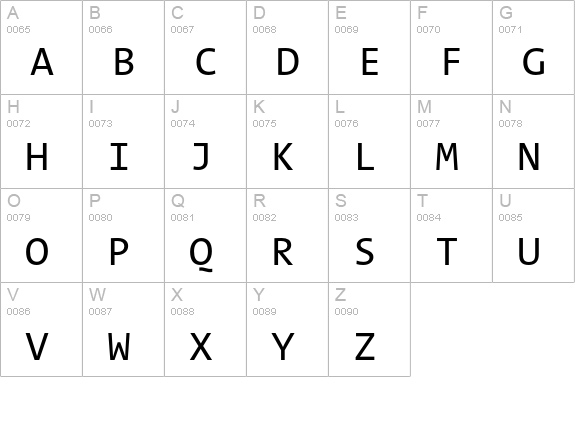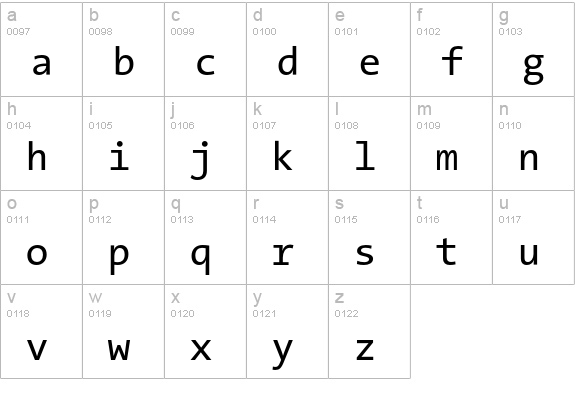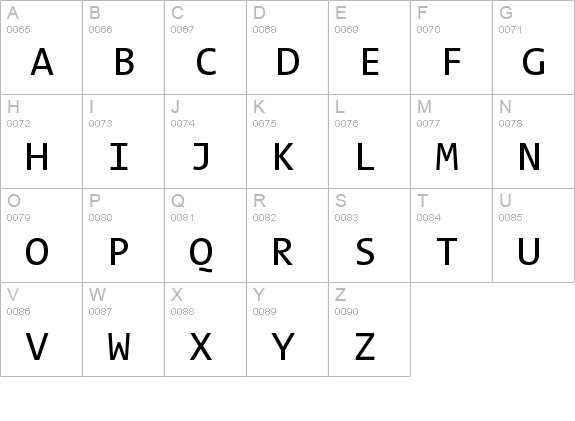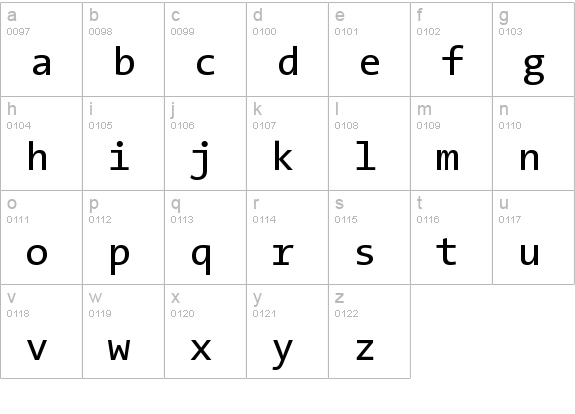
TheSansMono Plain font is a versatile and stylish typeface that is perfect for a wide range of design projects. With its clean and modern appearance, it brings a touch of professionalism to any text it is used with. The font features a monospaced design, making it ideal for coding, programming, and other technical applications. One of the standout features of TheSansMono Plain font is that it is free to download. It is available for both personal and commercial use, allowing designers, developers, and enthusiasts to enhance their projects without any hassle. This font can be freely obtained at FontsMarket.com, a trusted source for high-quality fonts. TheSansMono Plain font offers a balanced mix of legibility, elegance, and simplicity. Its clean lines and consistent spacing make reading and editing text a breeze. Whether it is used in print or digital media, this font ensures that every character is clear and easy to distinguish. With its timeless design, TheSansMono Plain font is suitable for a wide range of applications. From website design to branding, from user interfaces to signage, this font adds a touch of professionalism and sophistication to any project. Its versatility and adaptability make it a go-to choice for designers who seek a font that can be used across various platforms and mediums. In conclusion, TheSansMono Plain font is a free and highly functional typeface that offers both style and clarity. Its availability at FontsMarket.com makes it easily accessible to anyone in need of a reliable font. With its clean lines and elegant design, this font is a great choice for any design project that requires a touch of professionalism and readability.